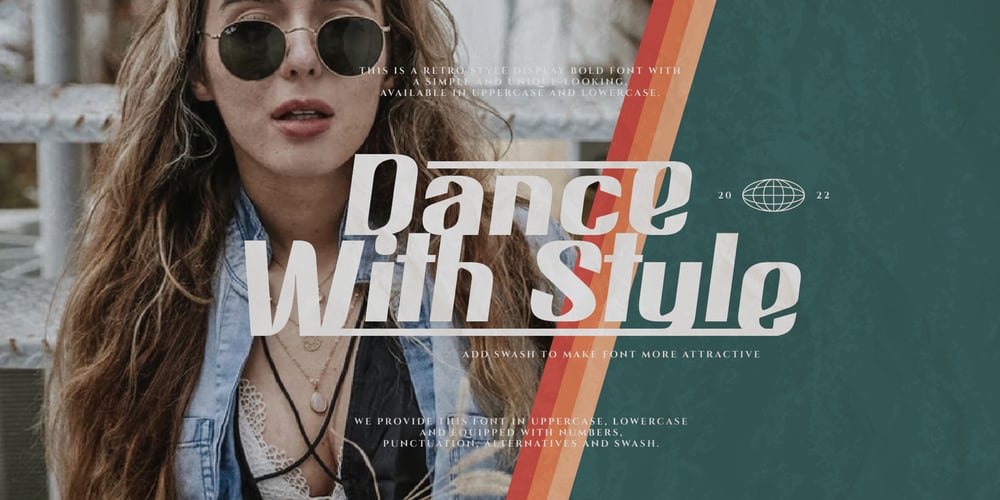
Burnston Display Font
Burnston Display Font Font Family was designed by Lukmanul Khikmatullah and published by Maculinc. Burnston Display Font contains 1 styles and family package options. This is a bold font with a simple and unique retro concept. We provide this font in uppercase, lowercase, number, and equipped with punctuation, alternatives and swash.Combine swash to add an interesting impression in every word you want, we provide swash as an alternative available in this font.1 DIsplay FontMultilingual SupportIf you are looking for a custom font or web license, and for support, feel free to contact us at maculinc@gmail.comThank you for visiting us and don’t forget to follow us :Behance ( https://www.behance.net/maculinc )Dribbble ( https://dribbble.com/Maculinc )Instagram ( https://www.instagram.com/maculinc/ )